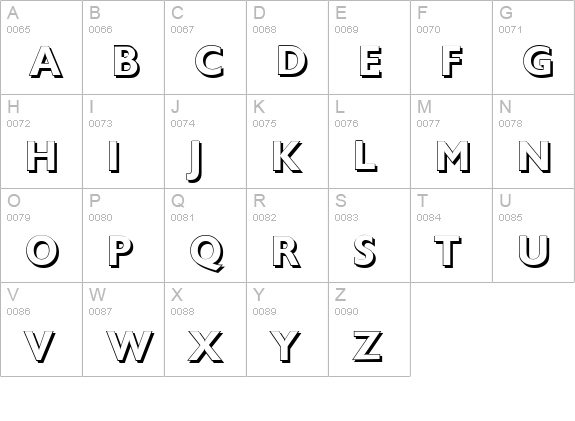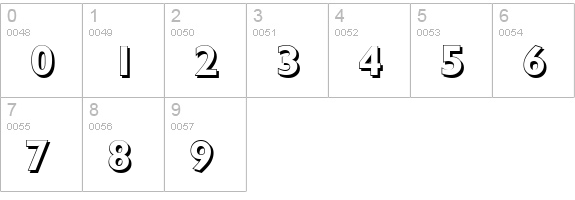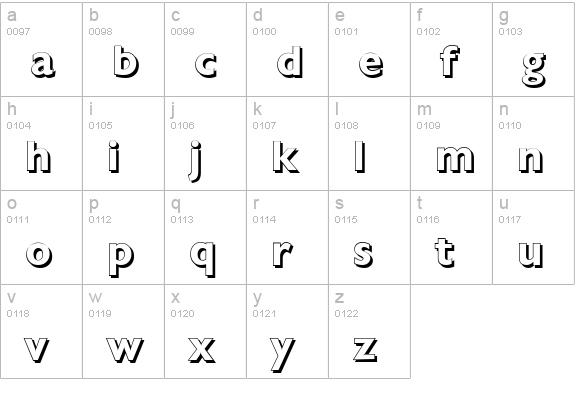
ChantillyShadow-Bold Font Details
ChantillyShadow-Bold is a strong, high-contrast variant in the ChantillyShadow typeface family \xE2\x80\x94 well suited to headlines, attention-grabbing titles, and strong calls-to-action.
ChantillyShadow-Bold font is a bold and striking typeface that exudes elegance and sophistication. Its sharp lines and detailed shadows make it perfect for creating eye-catching headers, titles, and logos. This versatile font can be used for a variety of design projects, from branding and packaging to invitations and posters. The best part about ChantillyShadow-Bold font is that it is completely free to download at FontsMarket.com. This means you can elevate your designs without having to worry about breaking the bank. So why wait? Download ChantillyShadow-Bold font today and add a touch of elegance to your next project!